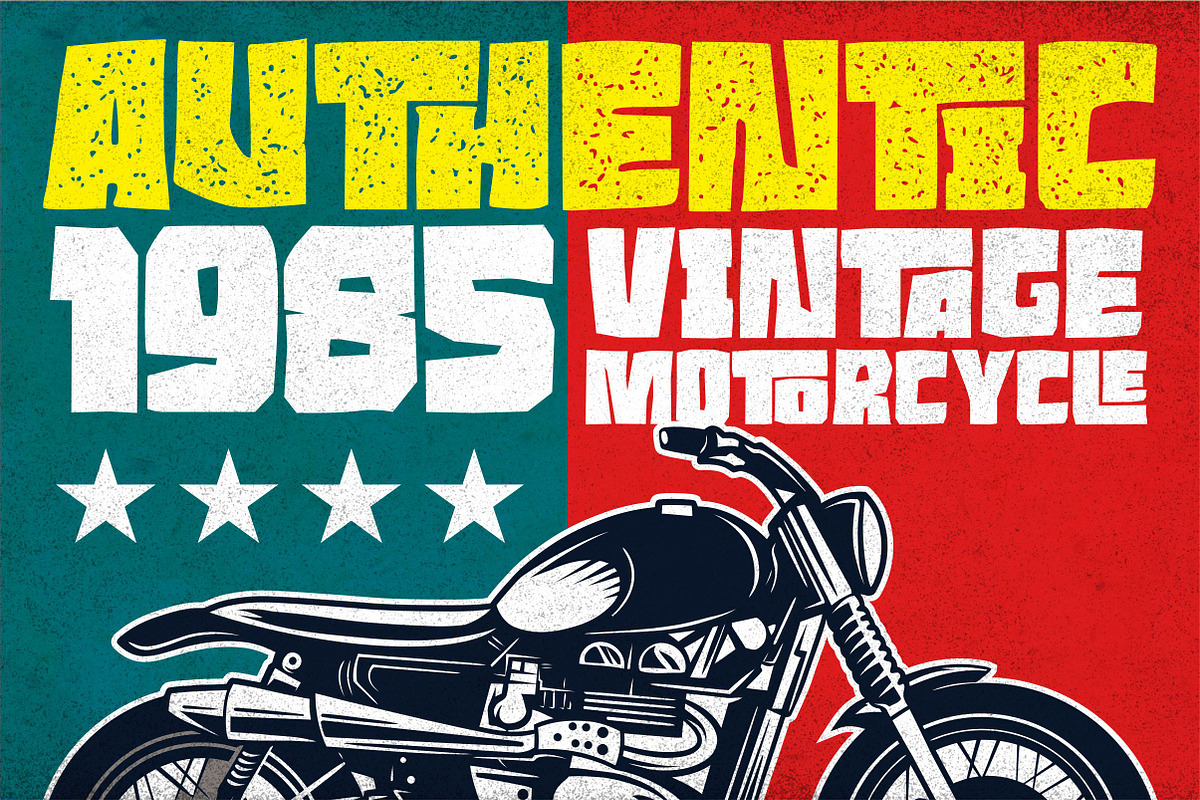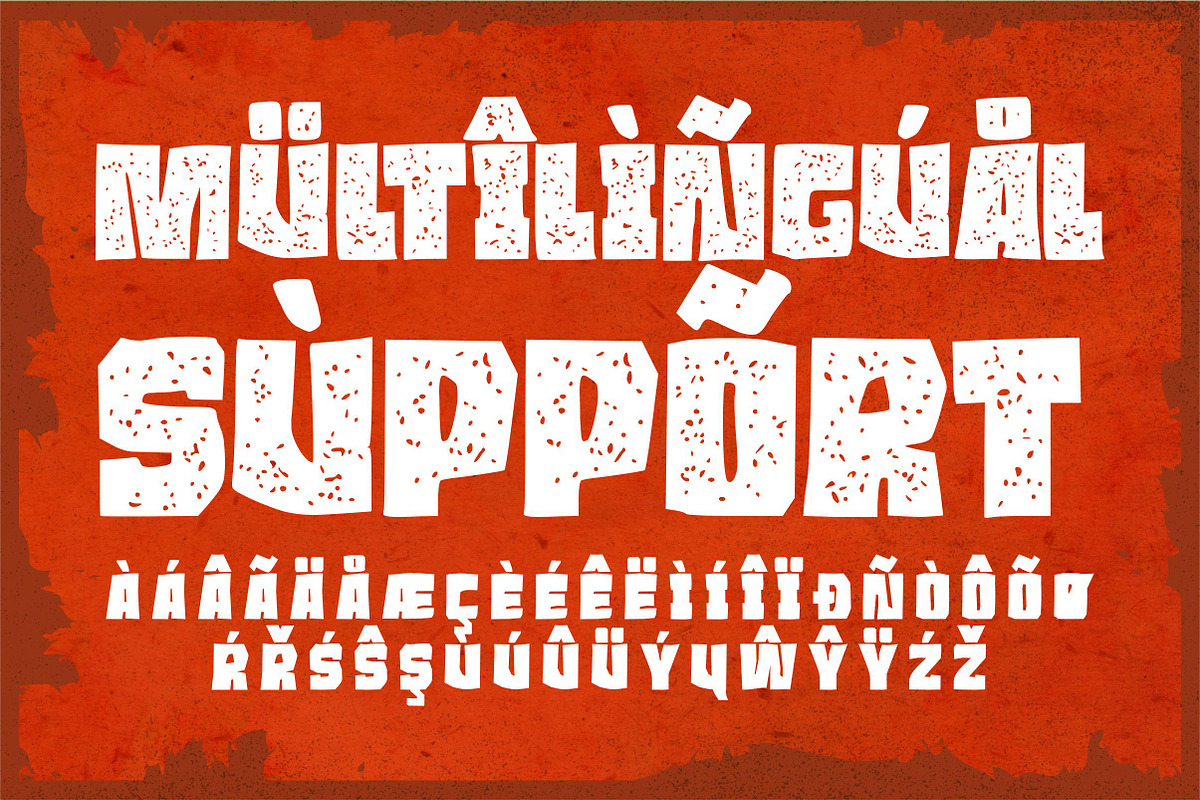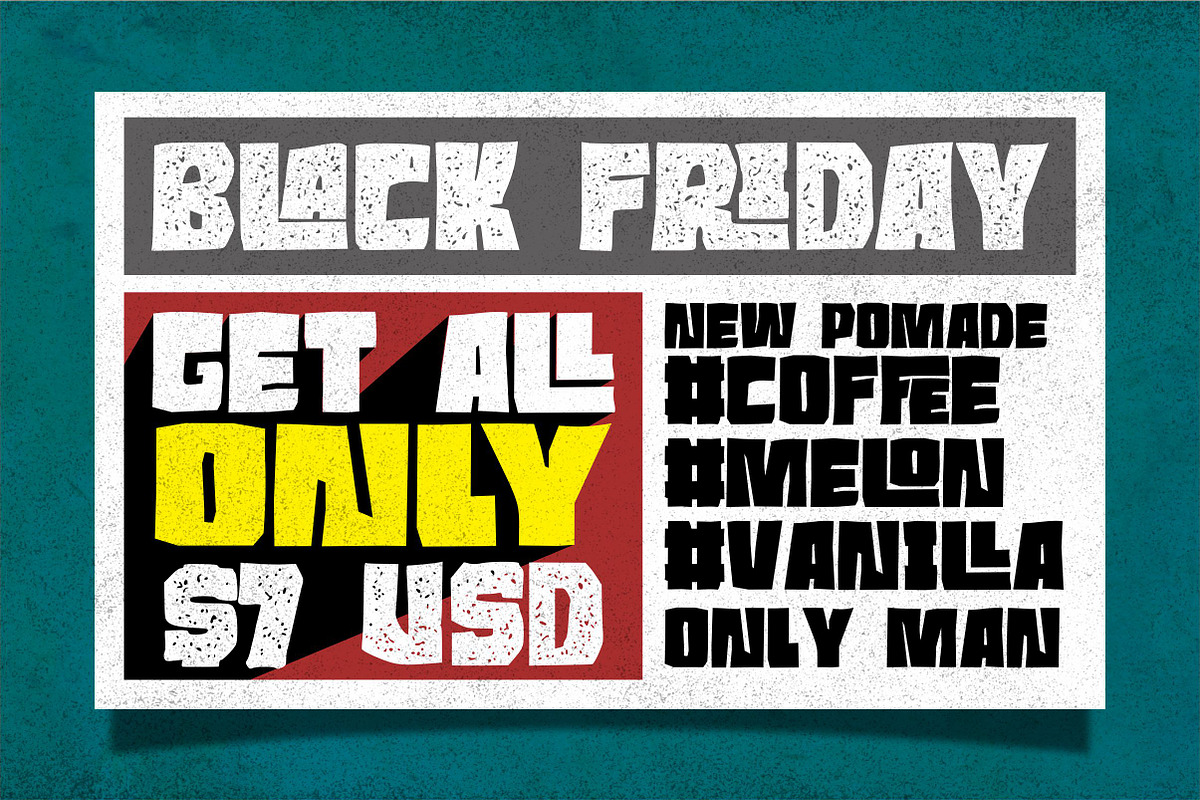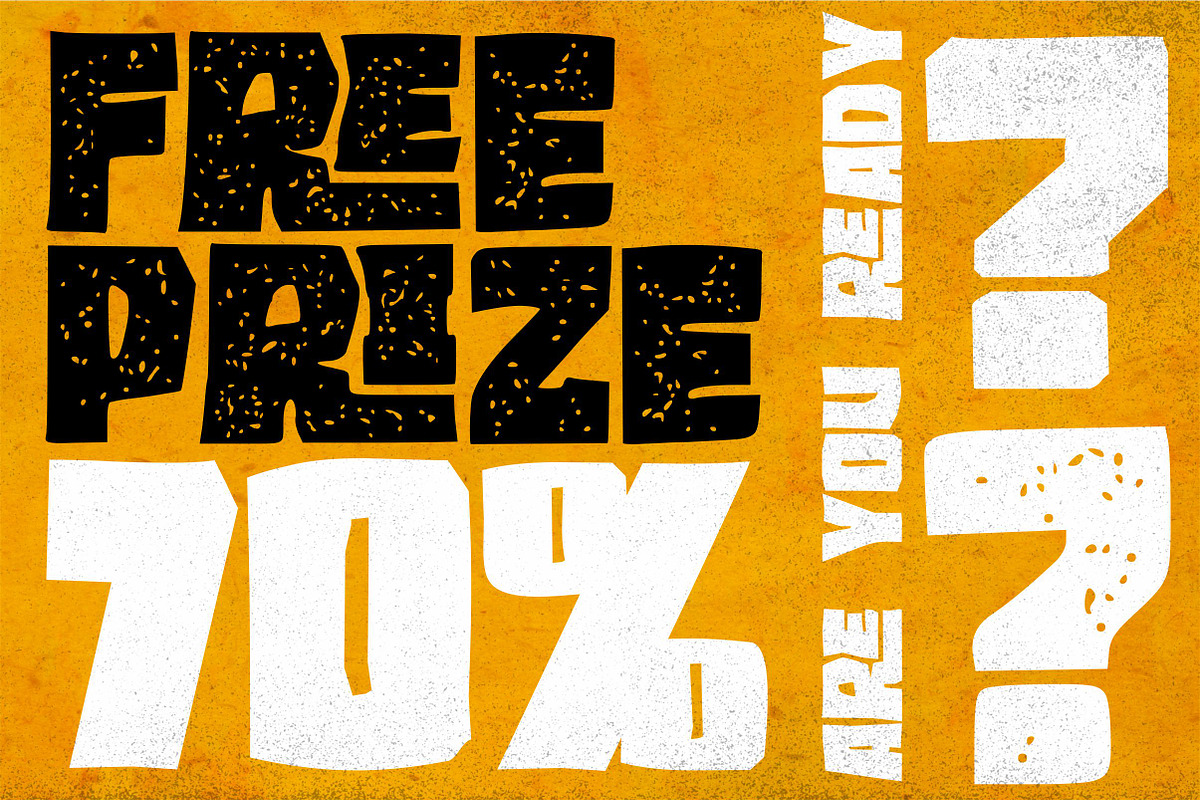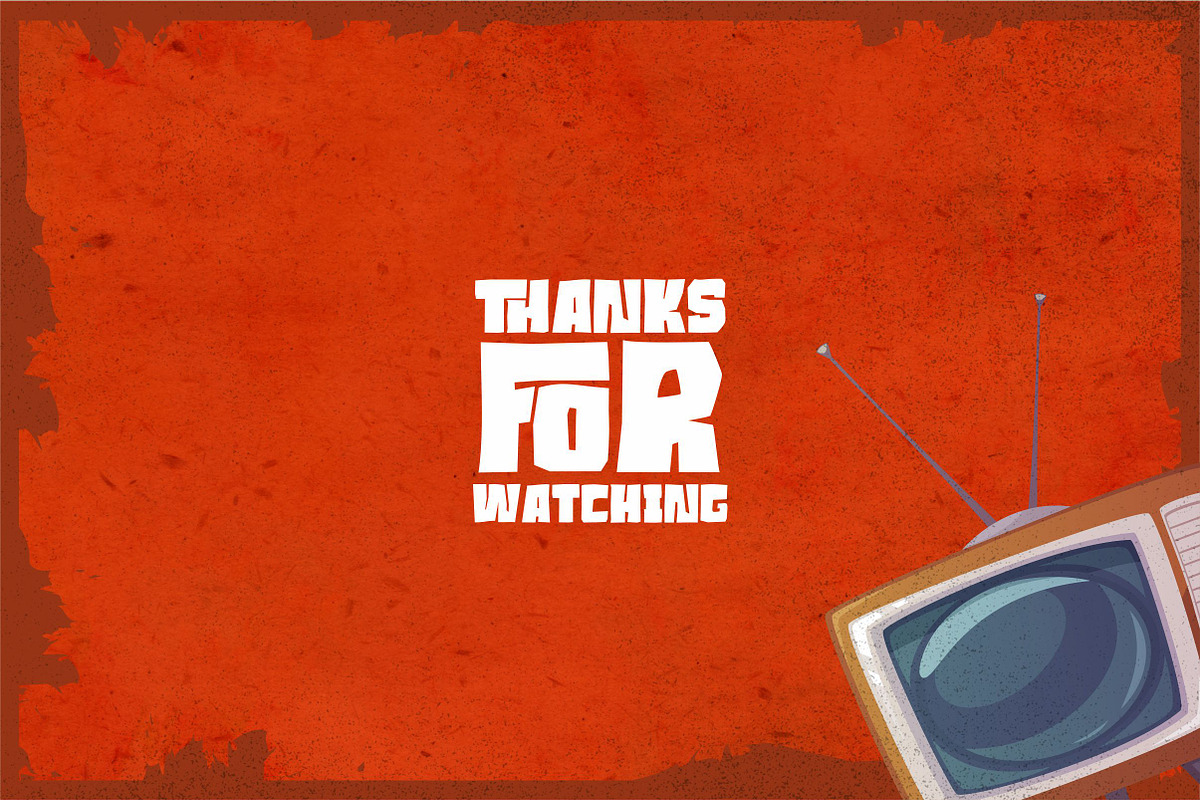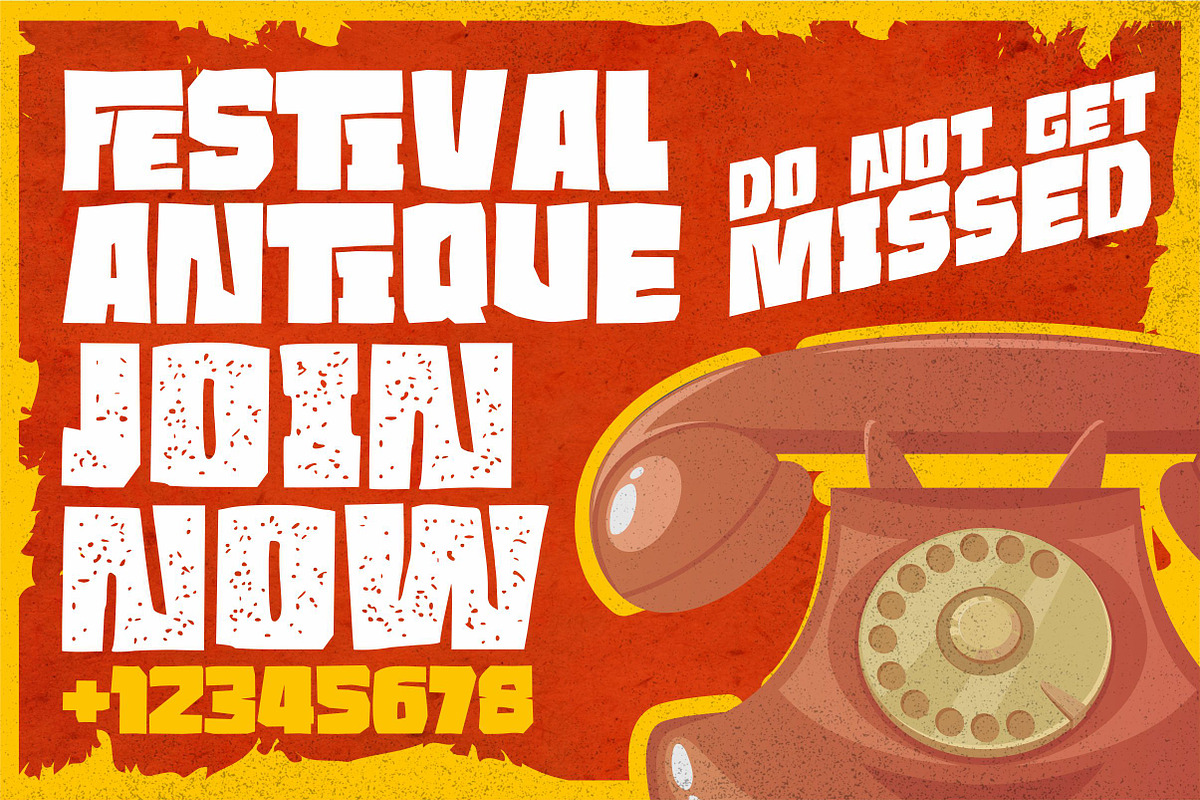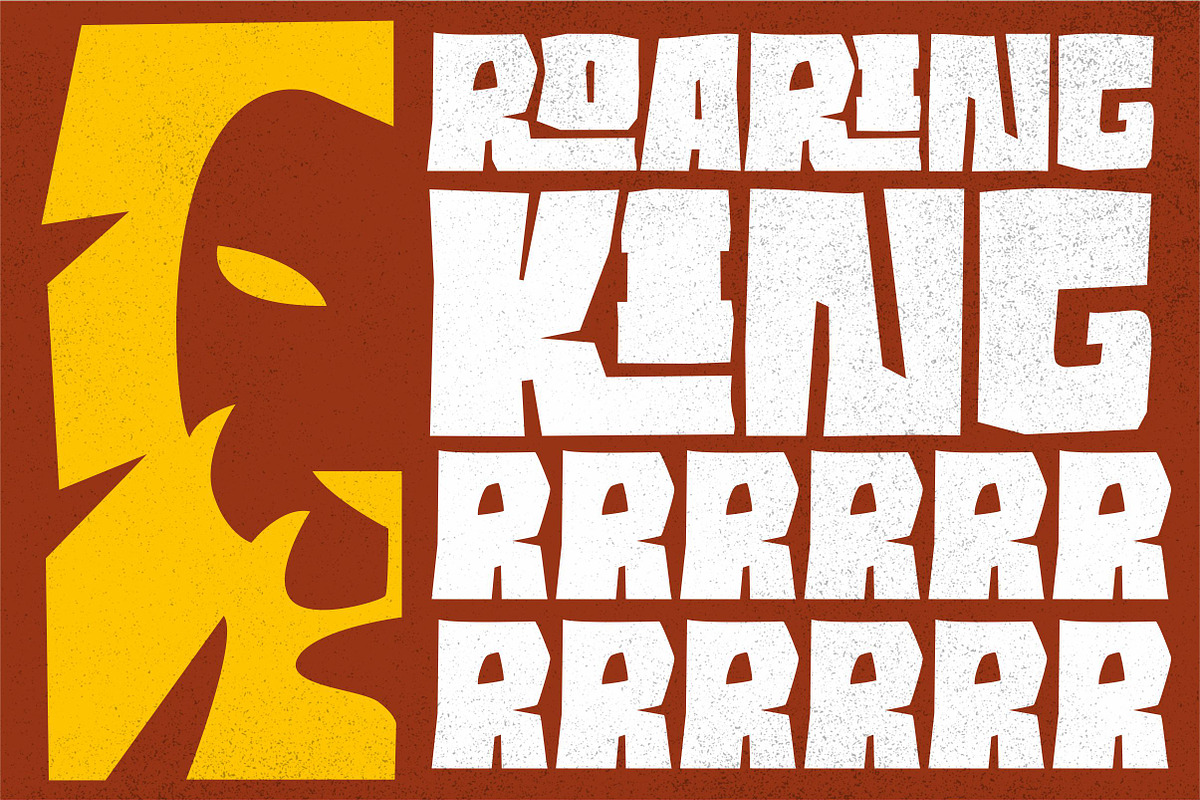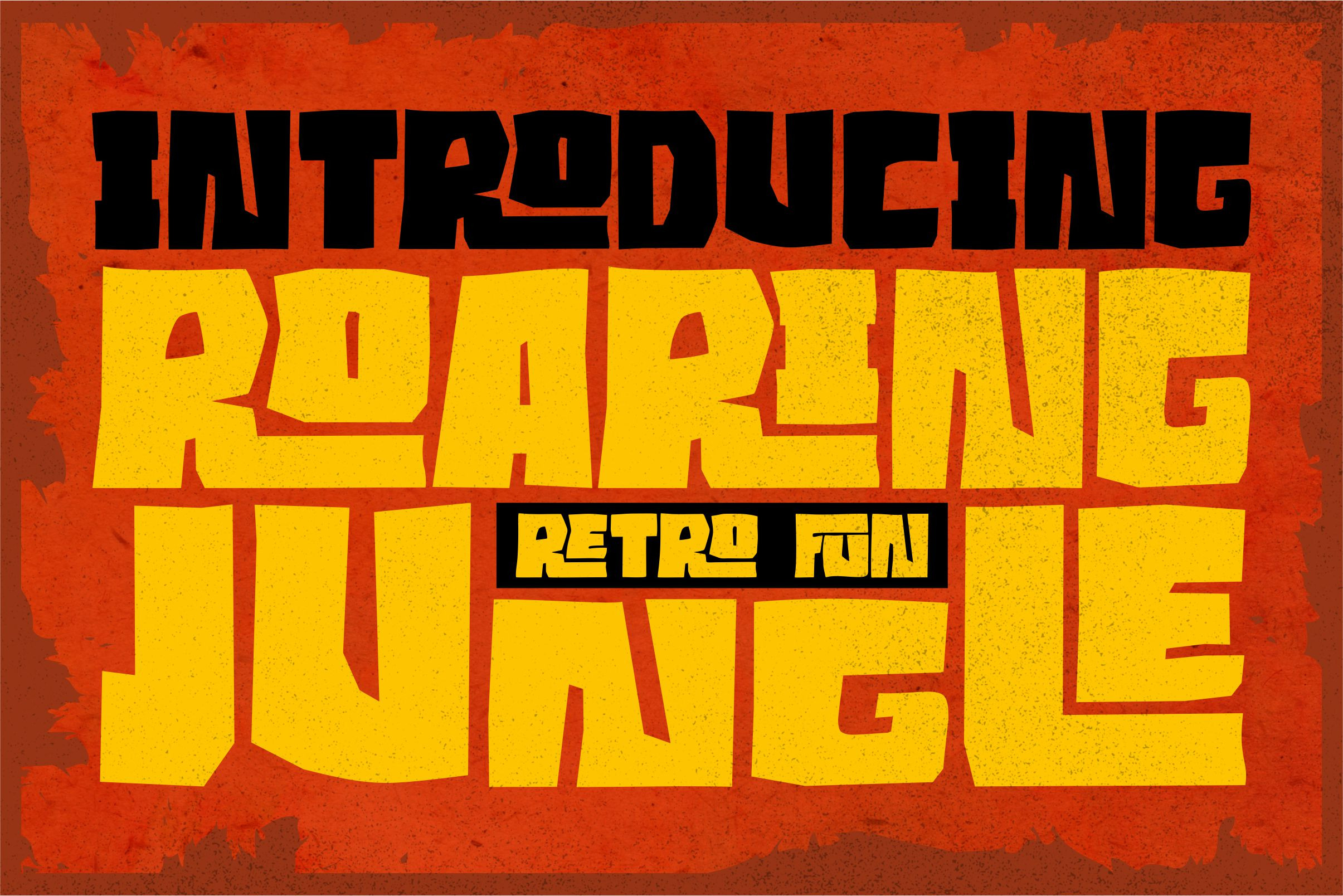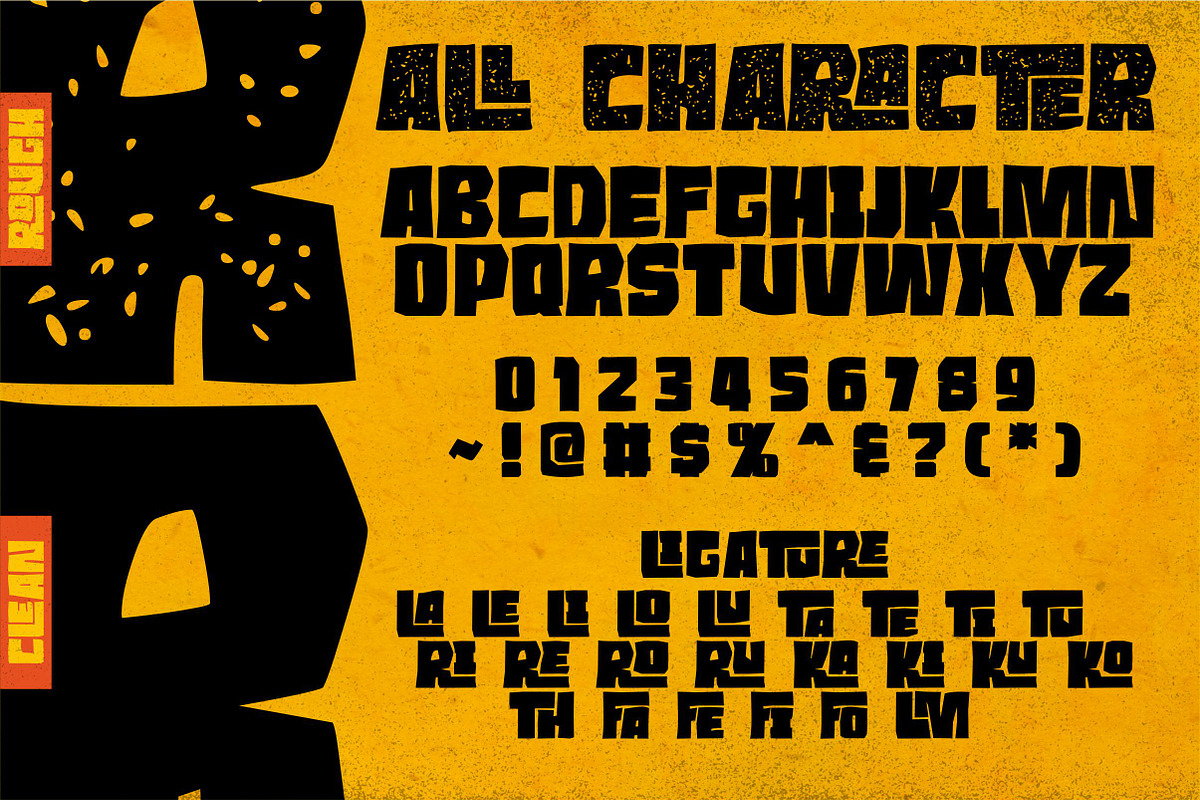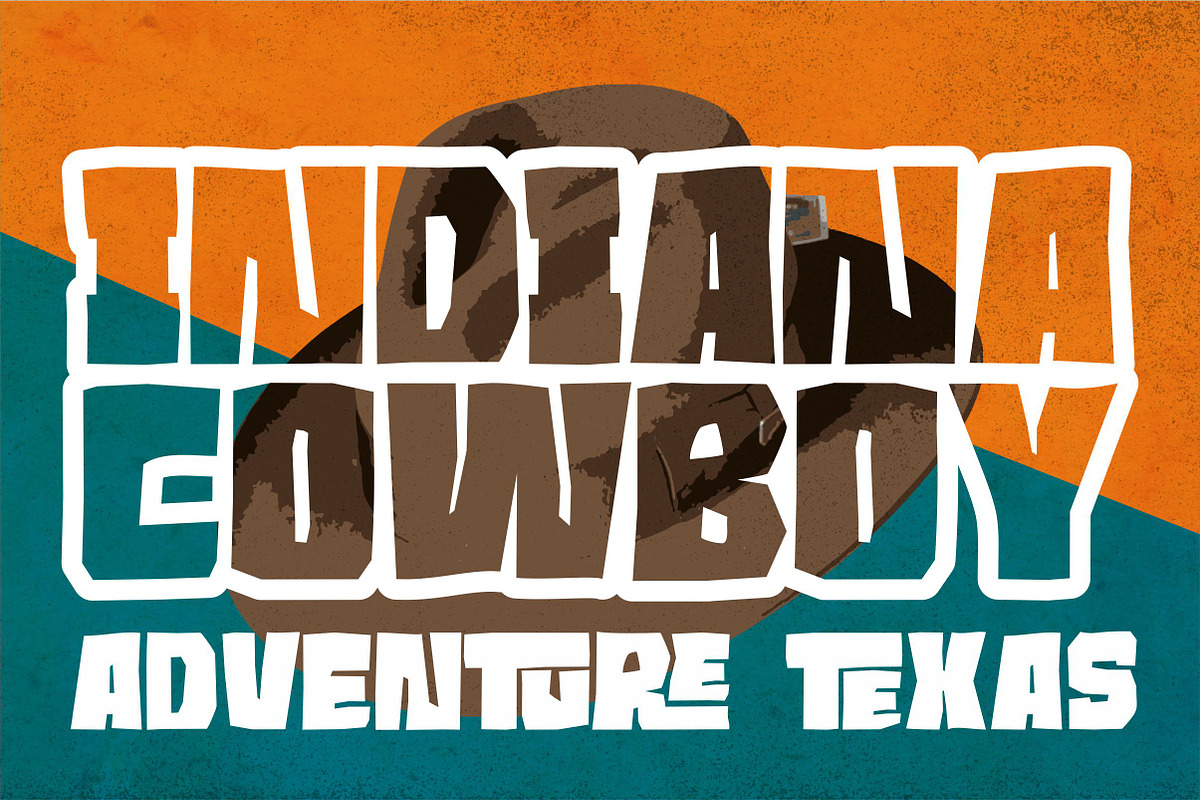
Roaring Jungle //RETRO FONT//
"Roaring Jungle - Retro Font" attractive curved style with inspired box edges from stone-style writing that is guaranteed to add traction because this unique shape is perfect for vintage and poster designs as well as for your logo design, brand image, retro poster, handwritten quote, product packaging , merchandise and more
equipped with 2 forms, namely regular and rough and multilinguang support